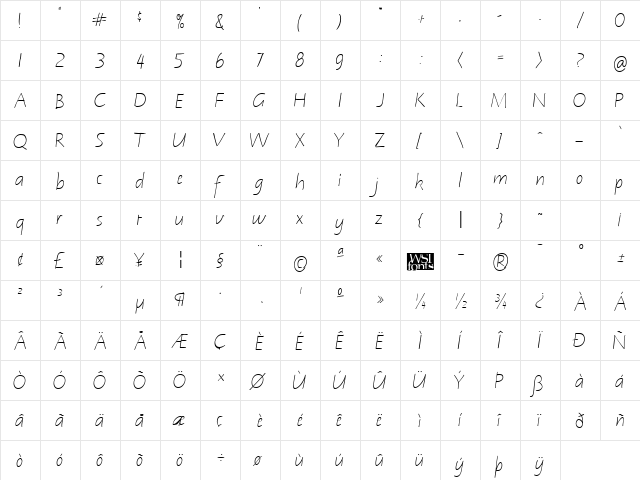
Notehand Regular
Design Context for Notehand Typeface
Notehand flows with the natural rhythm of handwritten lettering, making it ideal for designs that call for warmth and personal expression.
Font Pairing: Combine Notehand with a simple geometric sans for maximum contrast — the tension between flowing curves and clean structure is a classic typographic pairing.
Pro Tip: Pair Notehand with a clean sans-serif for supporting text. The contrast between fluid script and geometric structure creates an elegant typographic hierarchy.